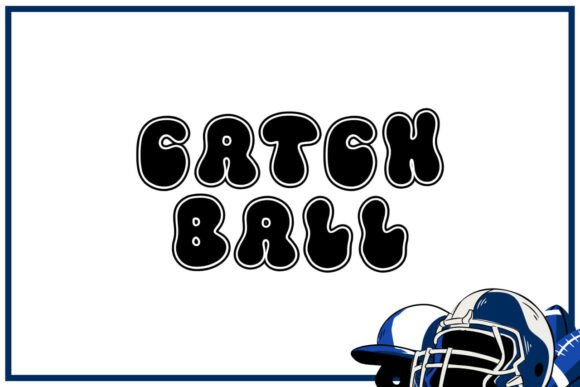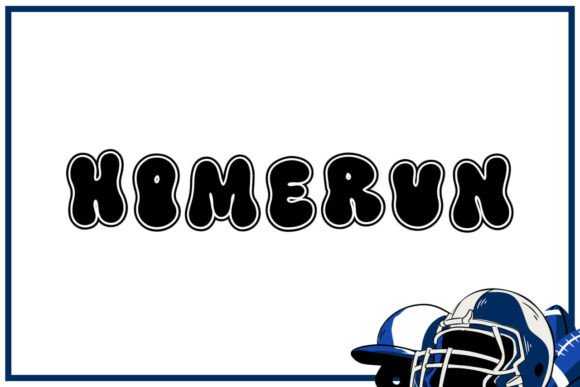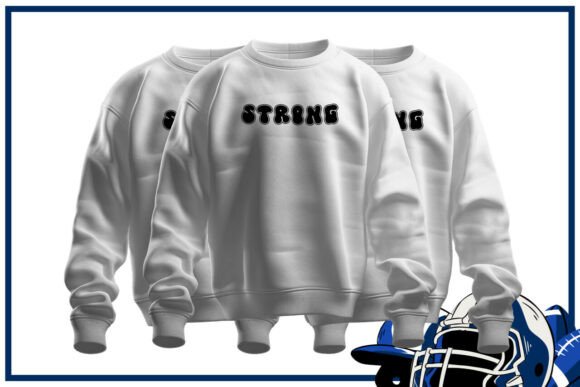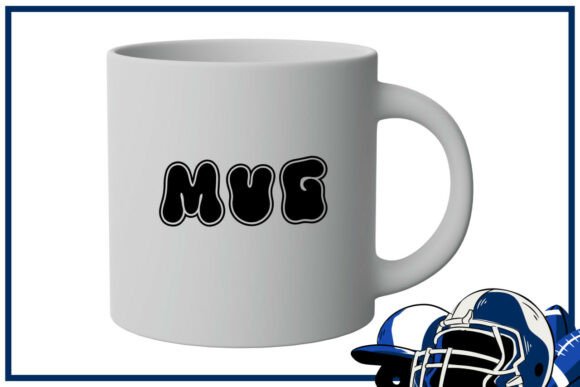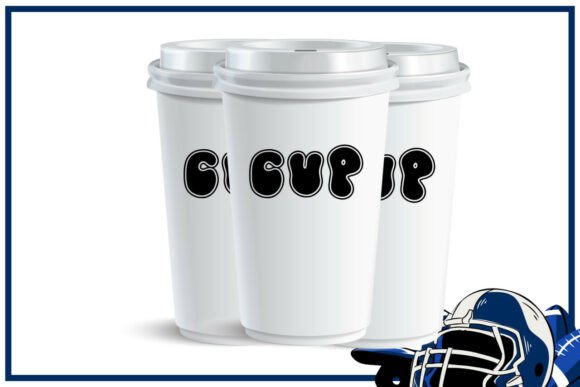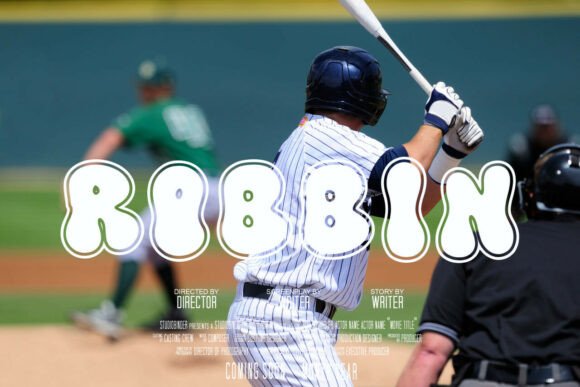
Meet Campus Groove Font: The Ultimate Choice for Designers and Crafters
Are you a designer or crafter looking for a font that embodies the spirit of campus life? Look no further than Campus Groove Font! This exciting new font combines the confidence of varsity style with a smooth, feel-good rhythm that’s perfect for a wide range of projects. In this article, we’ll take a closer look at Campus Groove Font and explore its many features and benefits.
The Perfect Blend of Style and Friendliness
One of the standout features of Campus Groove Font is its unique blend of bold, upright letters and rounded edges. This gives the font a friendly, approachable feel that’s perfect for designs that need to appeal to a wide audience. Whether you’re creating spirit wear, club materials, or social media posts, Campus Groove Font is the perfect choice.
Optimized for Headlines and Large Formats
Another key benefit of Campus Groove Font is its optimized spacing, which makes it ideal for use in headlines and large formats. Words snap into place on shirts, banners, stickers, and thumbnails, making it easy to create eye-catching designs that get noticed. This is especially useful for designers and crafters who work with physical products, such as screen printers or vinyl cutters.
Campus Groove Font is incredibly versatile, making it perfect for a wide range of projects and applications. Here are just a few ideas to get you started:
- Spirit wear: Create bold, eye-catching designs for t-shirts, hoodies, and other team apparel.
- Club materials: Design logos, flyers, and other materials for school clubs and organizations.
- Pep rallies: Create energetic, motivational posters and social media posts to get students pumped up for games and events.
- Game-day posts: Design social media posts and graphics that capture the excitement of game day.
- Creator brands: Use Campus Groove Font to add a touch of school spirit to your brand or product.
Tips for Getting the Most Out of Campus Groove Font
To really make Campus Groove Font shine, try combining it with some additional design elements. Here are a few ideas:
- Add double strokes or soft shadows to give your text a varsity-inspired look.
- Use stitch edges or other textures to give your designs a more tactile, realistic feel.
- Experiment with different colors and gradients to add depth and visual interest to your designs.
The Benefits of Using Campus Groove Font
So why choose Campus Groove Font for your next project? Here are just a few benefits:
- Crispy vinyl cuts and screen prints: The sturdy forms of Campus Groove Font ensure that your designs stay crisp and clear, even when printed on jerseys, caps, and hoodies.
- Less editing required: With Campus Groove Font, you can launch full sets for teams, camps, and tournaments with minimal editing required.
- Clear titles on mobile and small labels: The rounded rhythm of Campus Groove Font keeps titles clear and legible, even on mobile devices and small labels.
In conclusion, Campus Groove Font is an exciting new font that’s perfect for designers and crafters who want to add a touch of campus style to their projects. With its unique blend of bold, upright letters and rounded edges, optimized spacing, and endless creative possibilities, Campus Groove Font is the ultimate choice for anyone looking to create eye-catching designs that capture the spirit of school life.